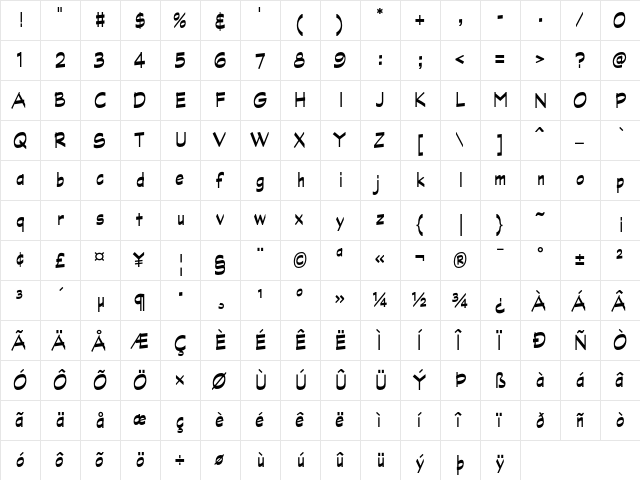
Graphite AT Narrow Black Regular
| Foundry | Miles Inc |
Design Context for Graphite AT Narrow Black Typeface
Graphite AT Narrow Black takes a measured approach to typography — its balanced proportions and neutral character make it a reliable workhorse for both digital and print work. Its narrow stance lets it pack a punch even in space-constrained designs.